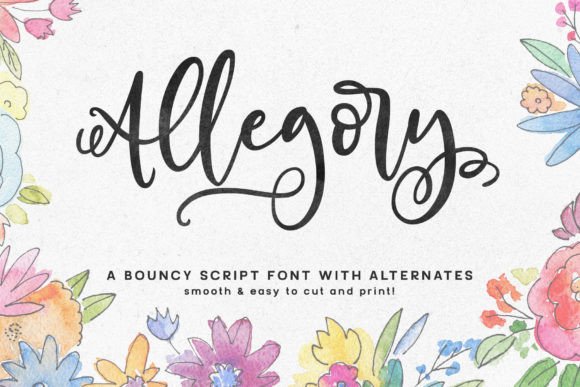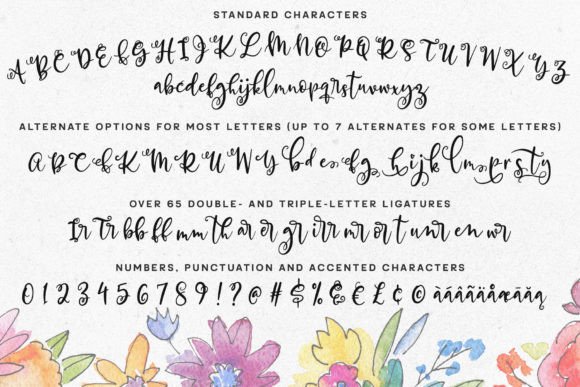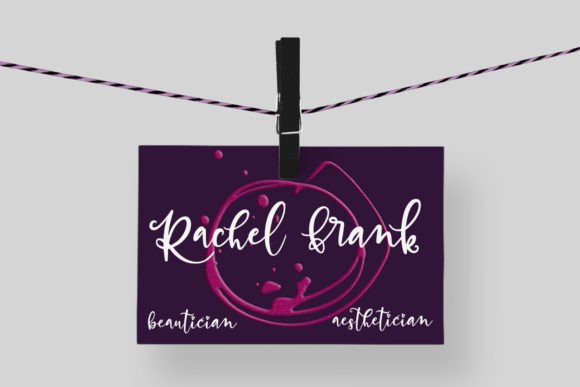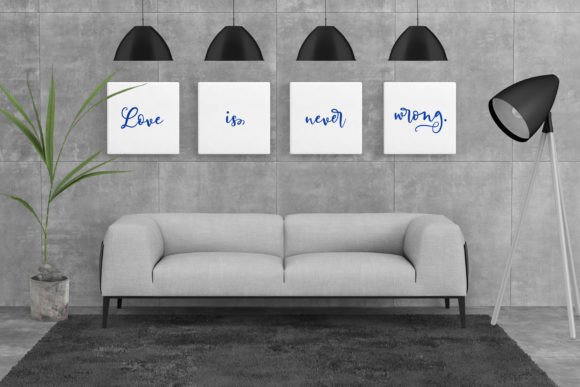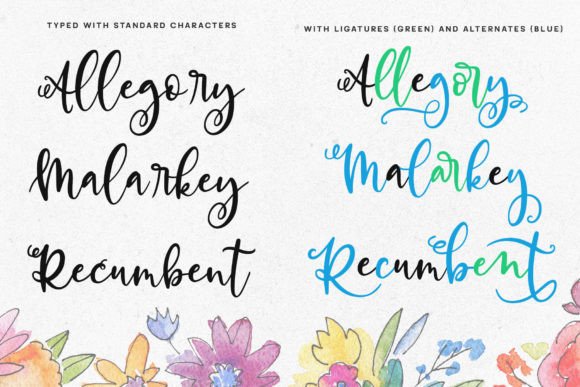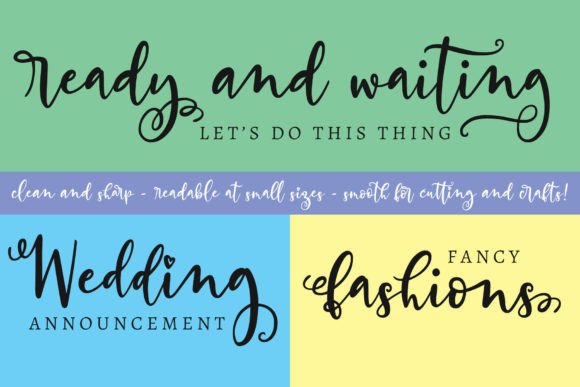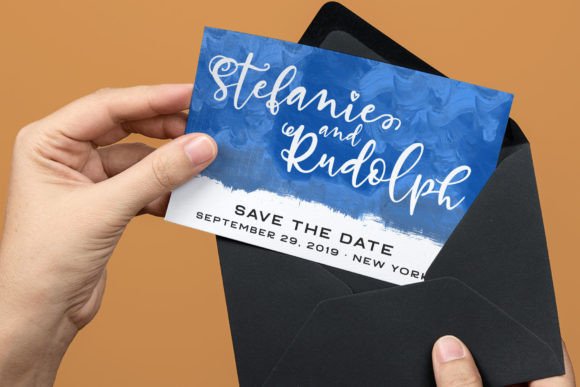
About Allegory Font
ALLEGORY is an exciting and dynamic font that draws inspiration from the same hand-lettered style used in United Scripts, a font featuring the names of U.S. states. With its lively and playful base alphabet, ALLEGORY brings a sense of fun to your designs. The font is crafted with a brush to maintain the authenticity and bounce that characterizes the United Scripts lettering.
What sets ALLEGORY apart is the inclusion of over 65 ligature sets, enhancing the fluidity of letter connections and ensuring a smooth and engaging appearance. These ligatures are coded to standard ligatures, making it easy to implement them in your designs seamlessly.
To add even more excitement and variety, ALLEGORY incorporates over 100 alternate letters. These alternates, coded to stylistic sets 01 through 08, allow you to experiment with different letterforms and bring a touch of flair to your typographic creations. The alternates contribute to the font’s versatility, ensuring that your designs stand out with a unique and personalized touch.
ALLEGORY doesn’t just stop at style β it also prioritizes functionality. With 180 accented characters, the font provides robust support for Western European languages, accommodating a wide range of design needs.
Whether you’re looking to infuse a sense of playfulness or add a unique twist to your projects, ALLEGORY is a font that combines creativity with functionality, making it a valuable asset for designers seeking versatility and character in their typography.